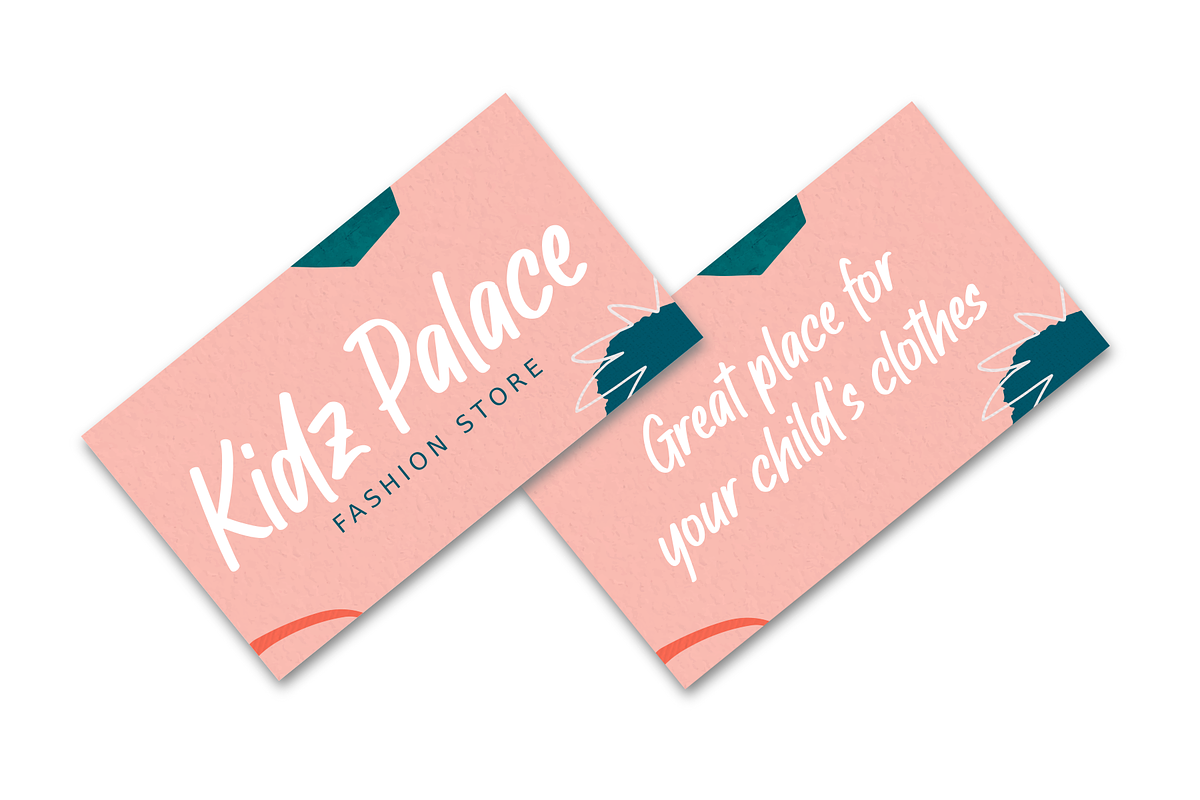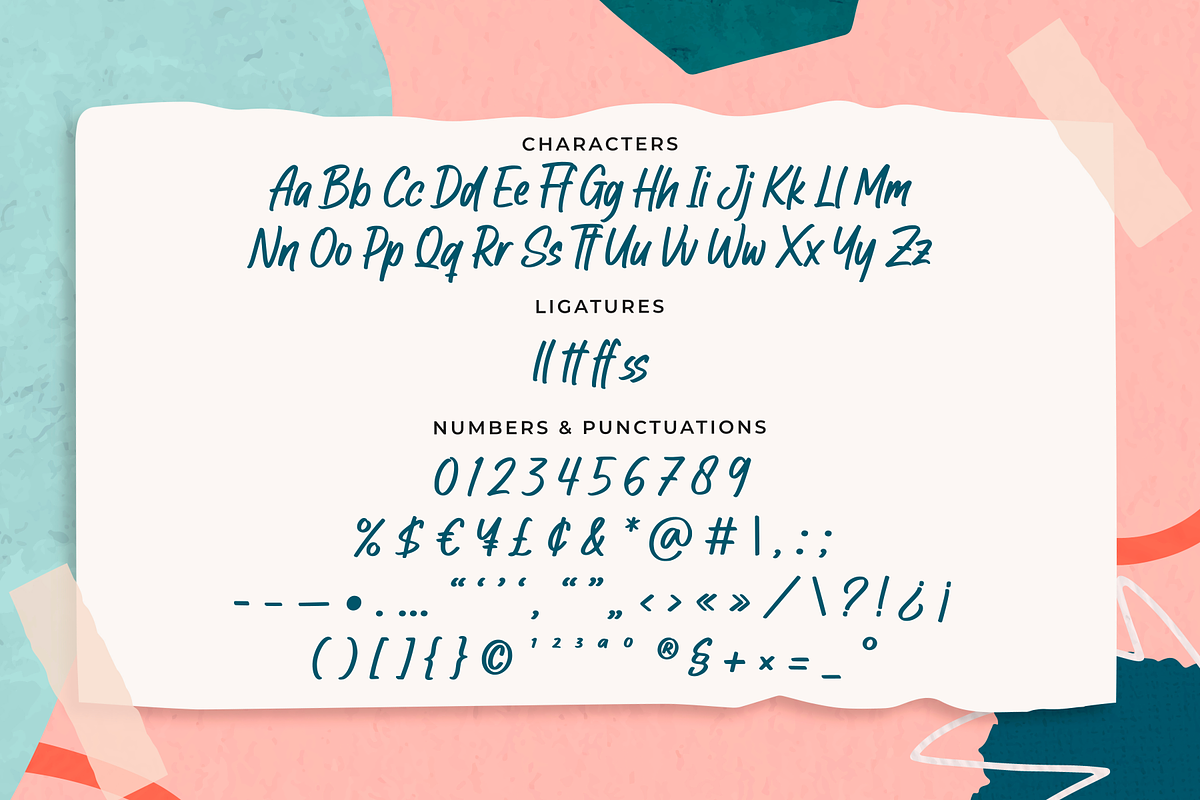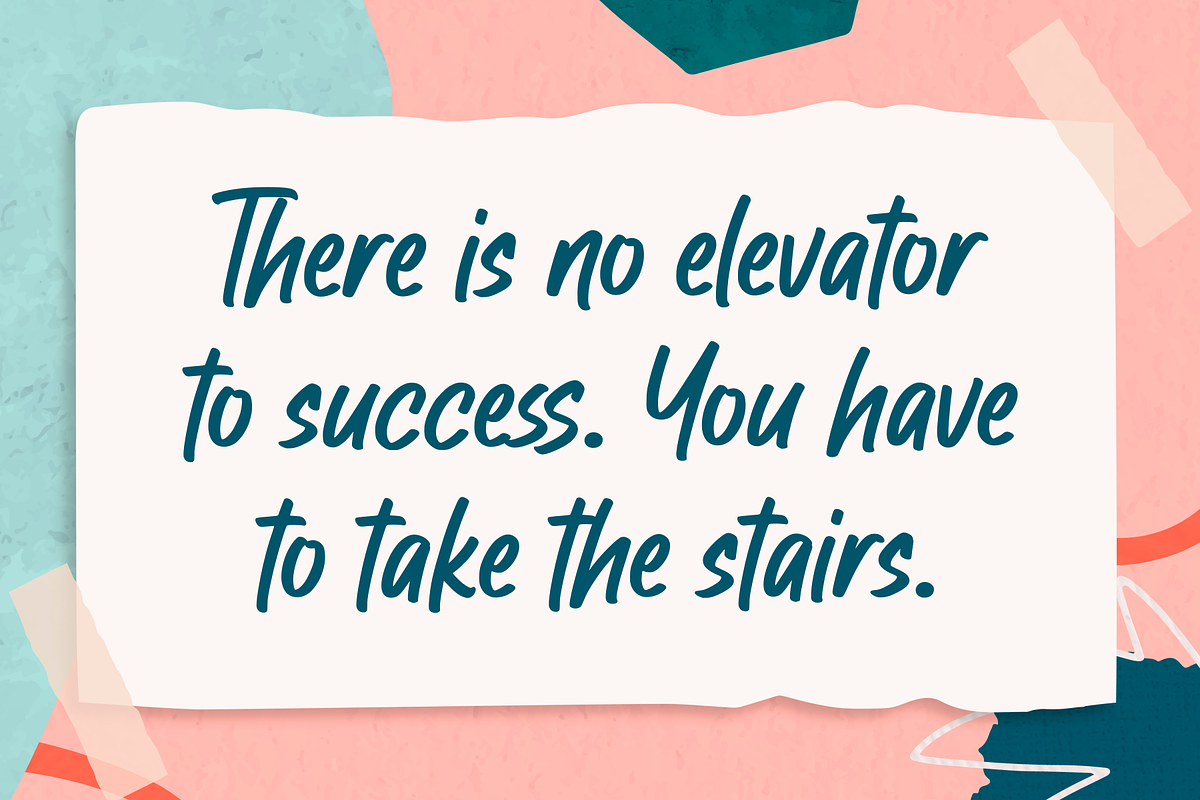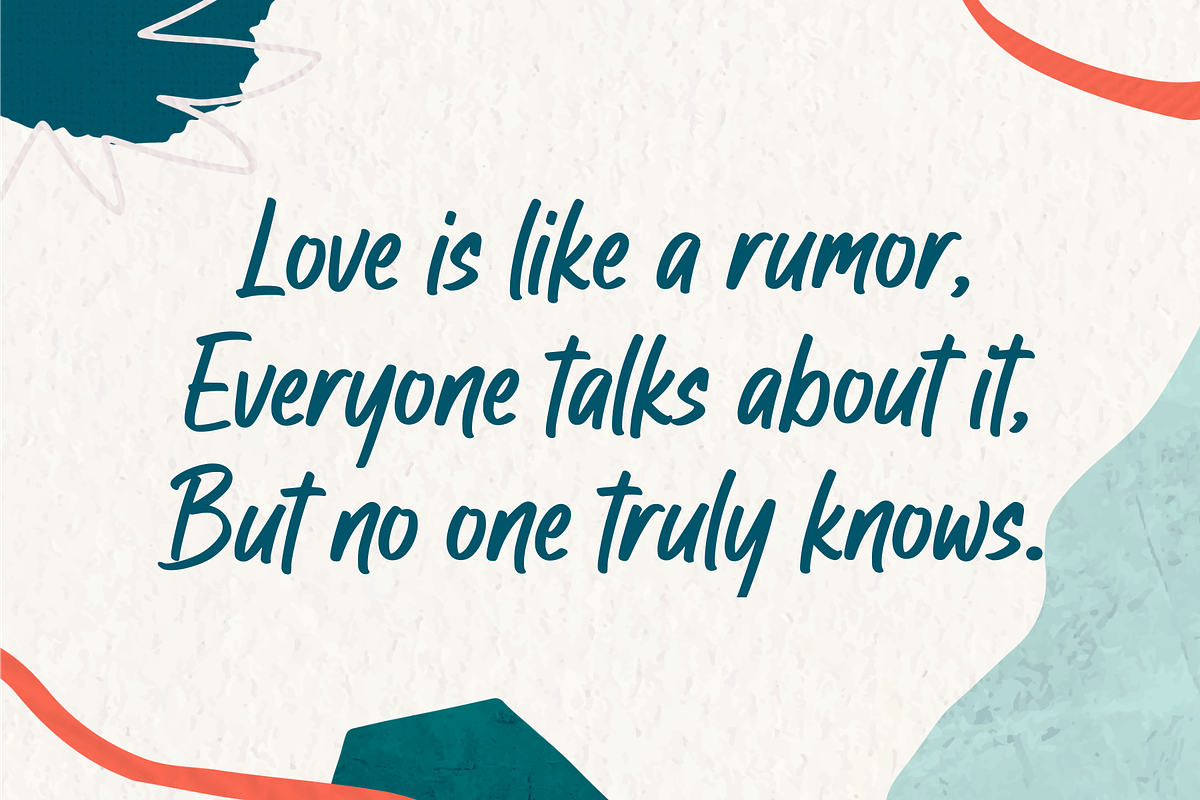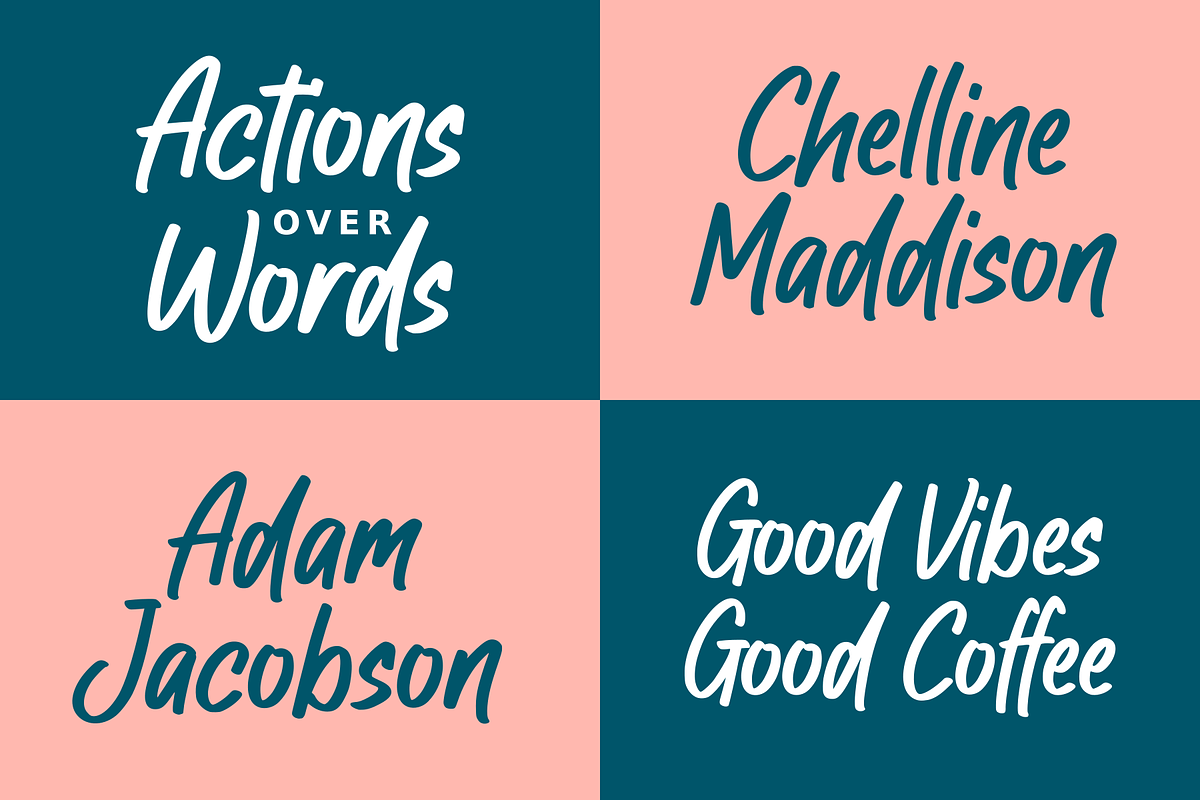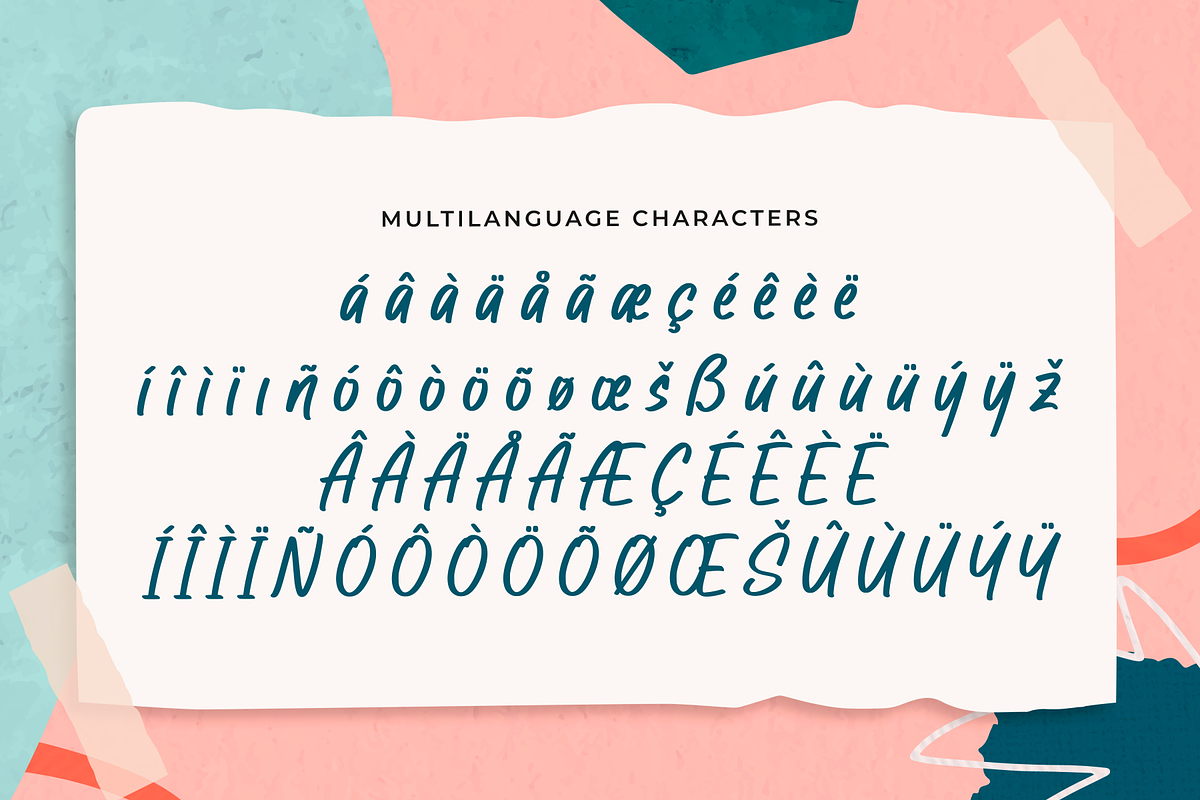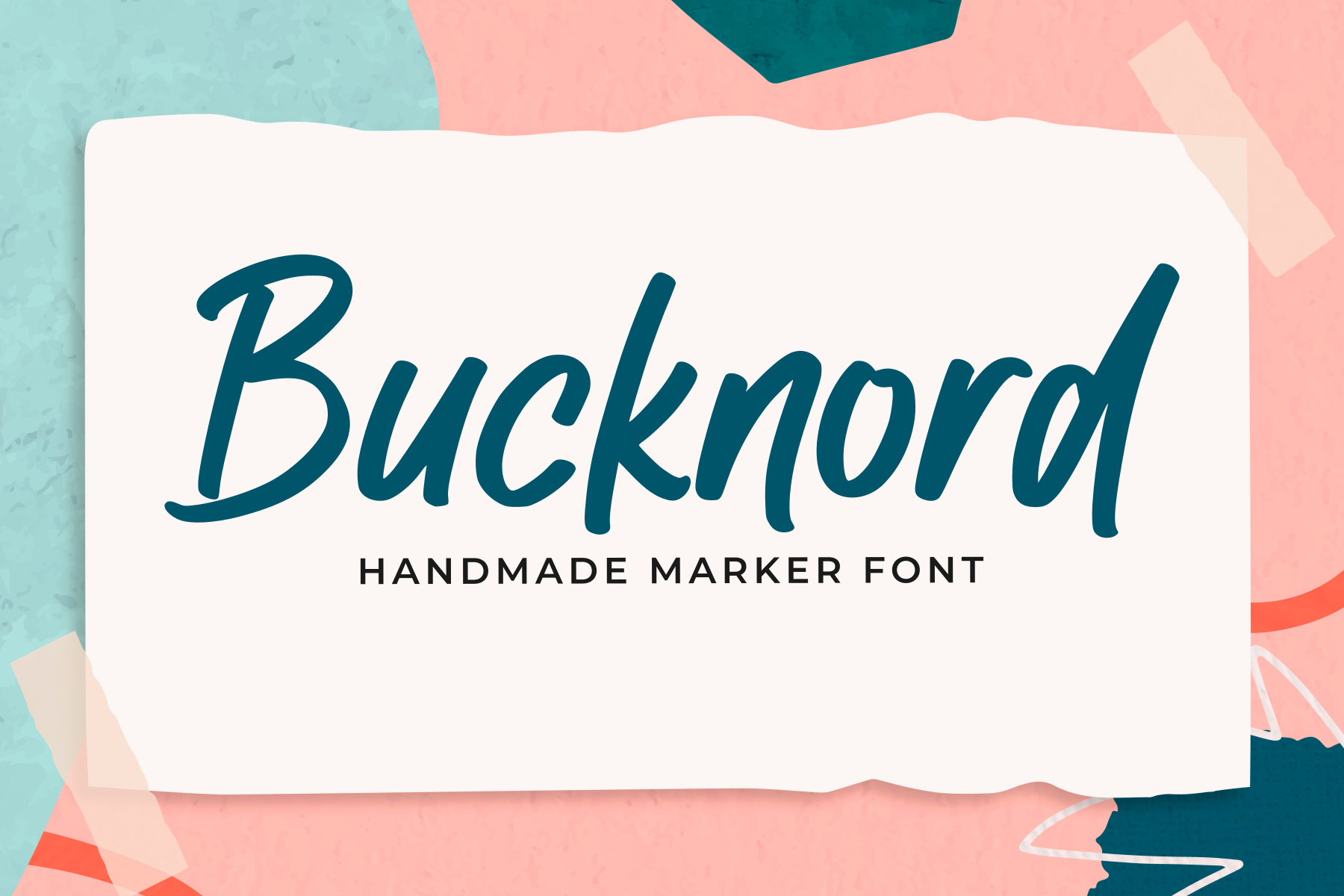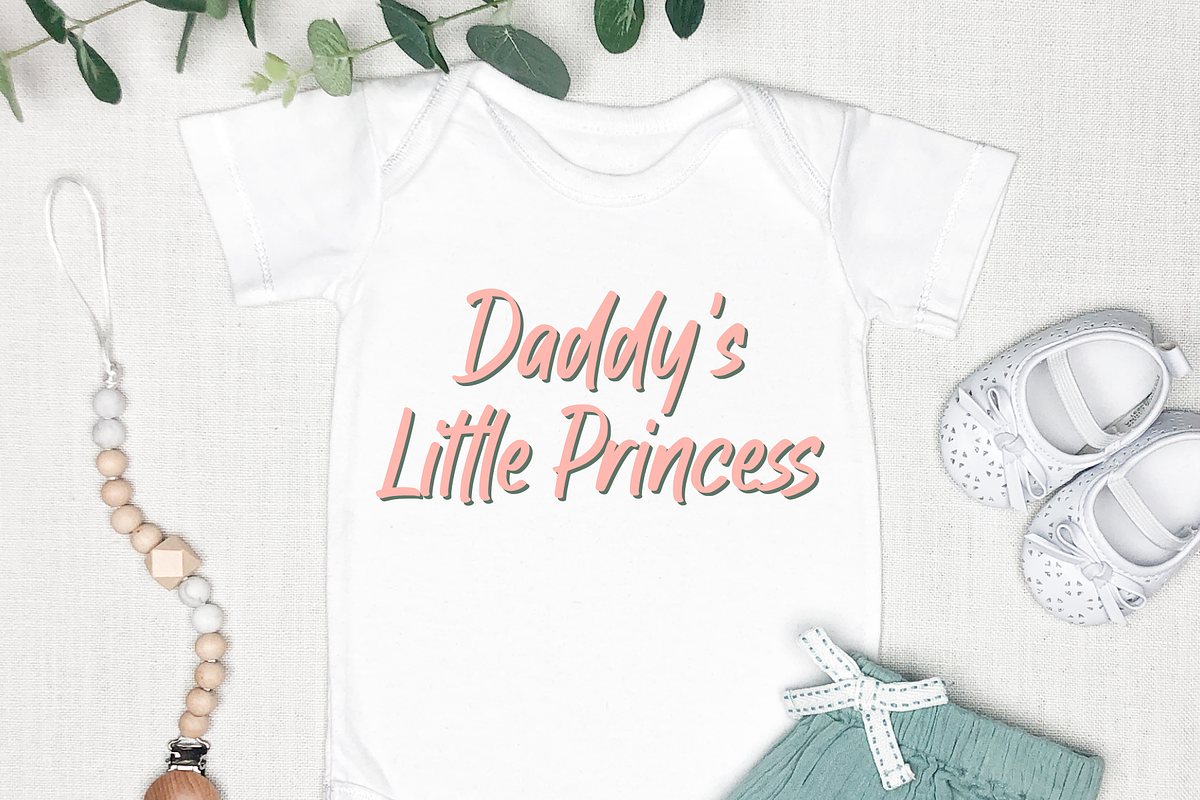
Bucknord - Handwritten Marker Font
Bucknord is a cool, playful, and expressive handmade marker font with a natural handwritten feel. Designed with bold marker strokes and casual lettering style, this font brings an authentic, friendly, and energetic look to your creative projects.
With its dynamic ligatures, Bucknord makes your text look more natural and less repetitive, giving every word a unique hand-drawn personality. The playful marker style makes it perfect for designs that need a fun, bold, youthful, and handcrafted touch.
Bucknord is a great choice for logos, product packaging, branding projects, invitation cards, social media graphics, headlines, posters, signage, labels, book covers, merchandise, quotes, stickers, and many other creative design needs.
Whether you are working on a modern brand identity, kids product packaging, casual logo design, playful poster, handmade label, or eye-catching social media content, Bucknord will help your design stand out with a fresh and authentic handwritten marker look.
Logo design
Product packaging
Branding
Invitations
Headlines
Posters
Labels
Signage
Book covers
Stickers
Social media posts
Merchandise design
Quotes and greeting cards